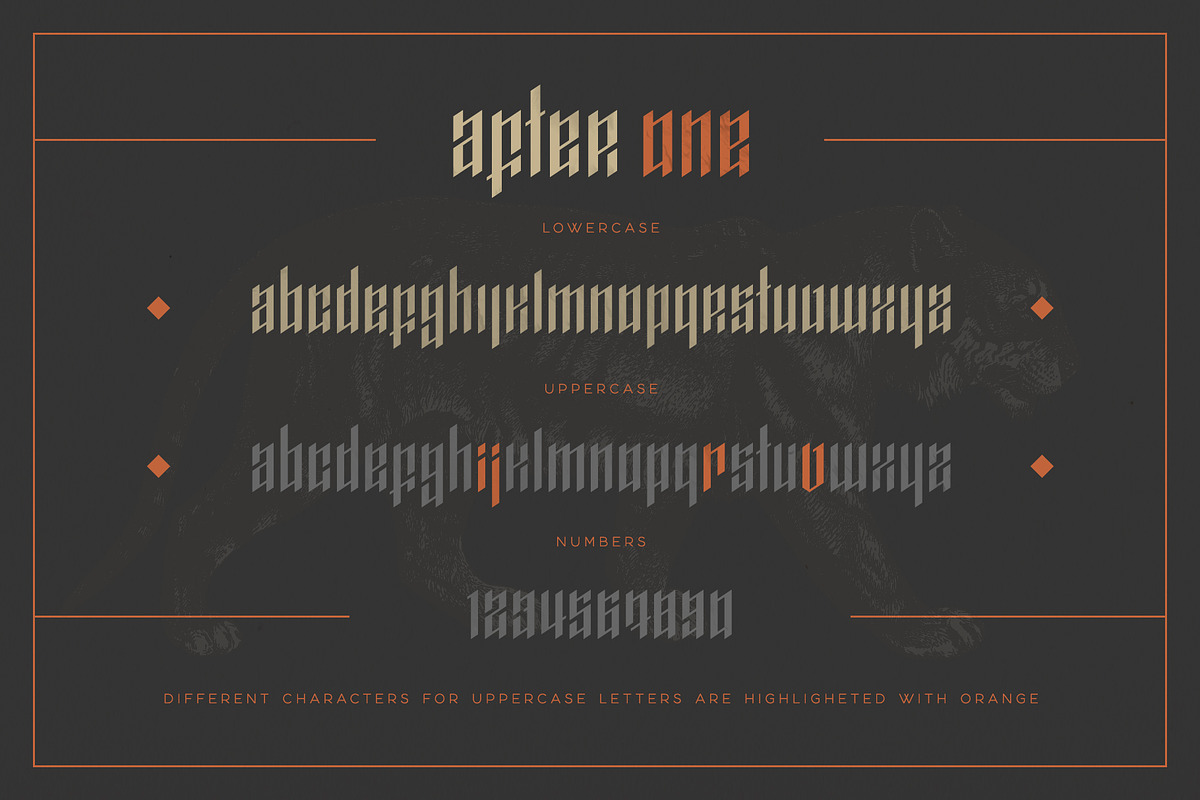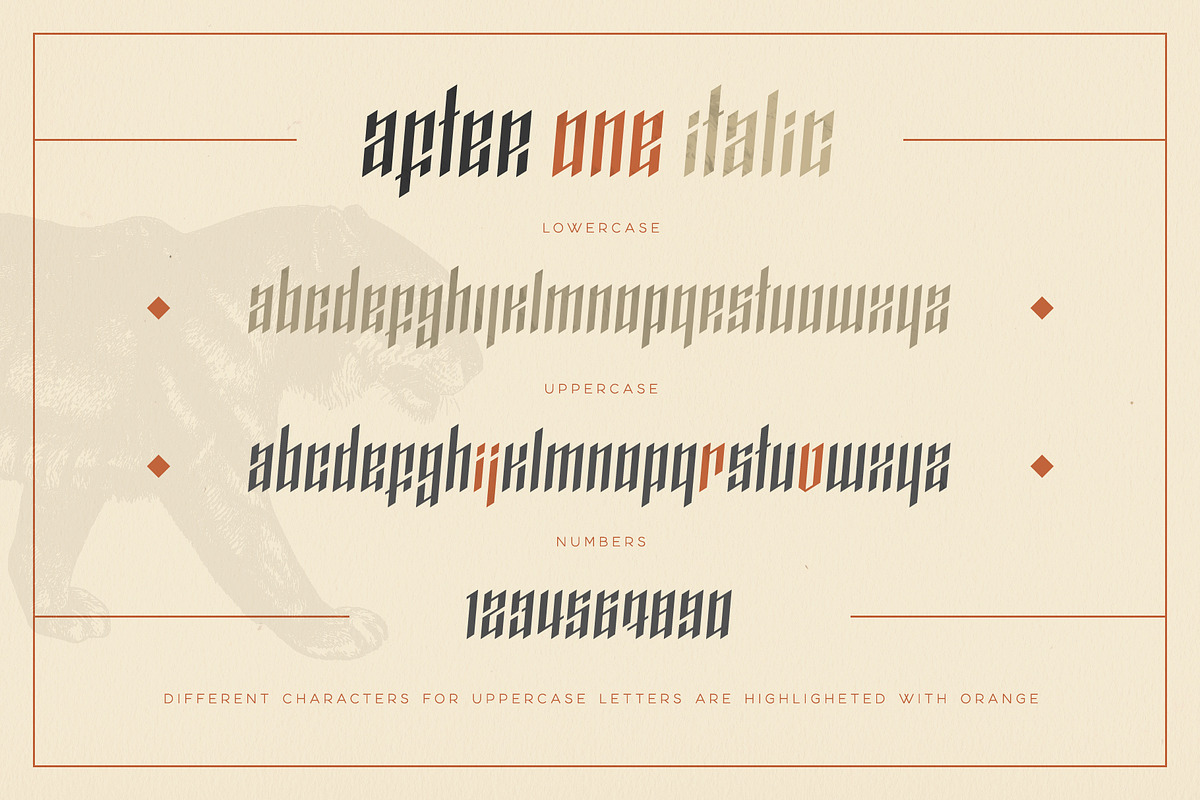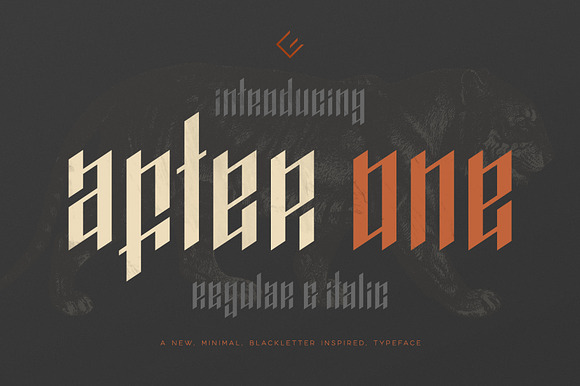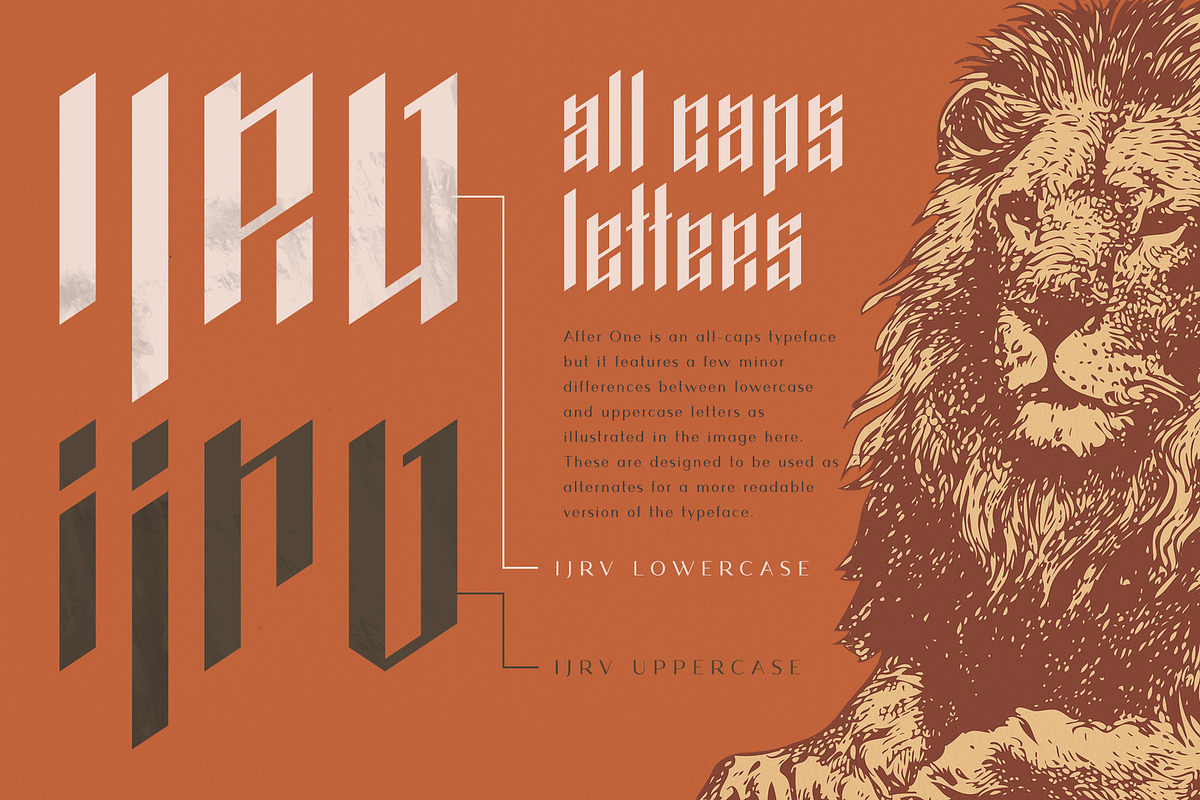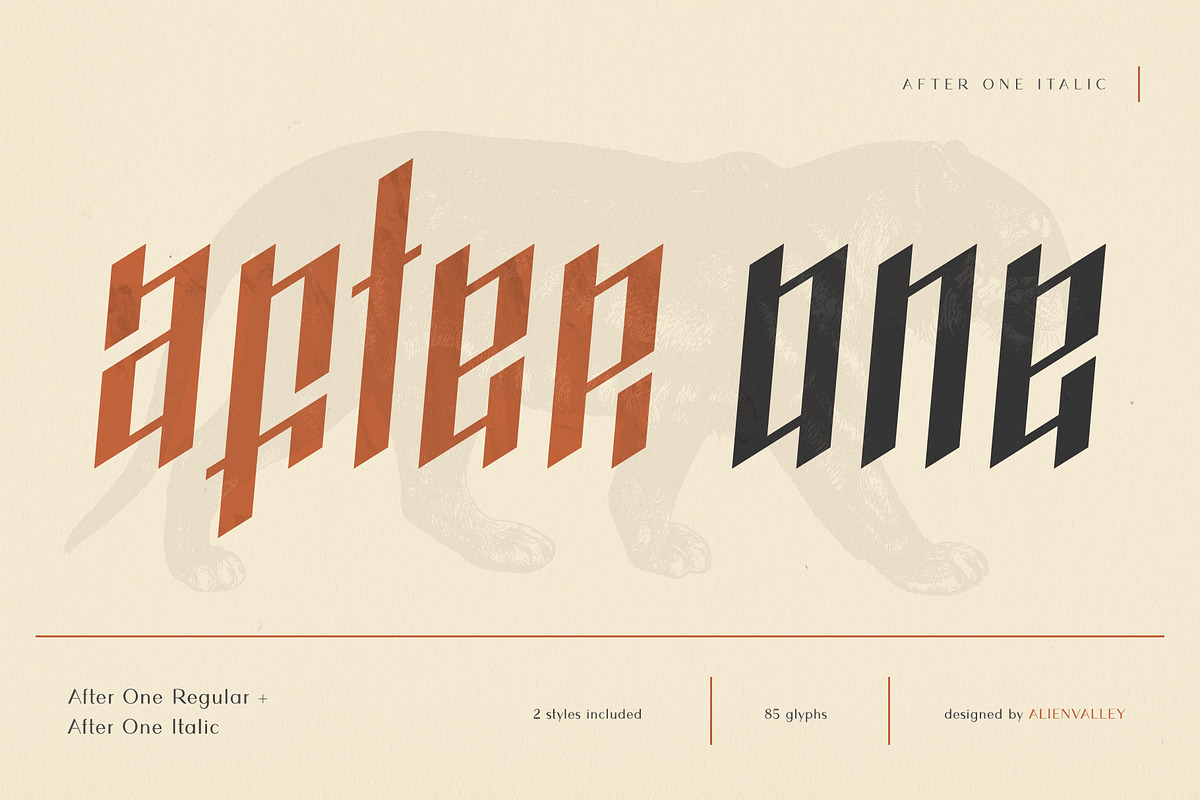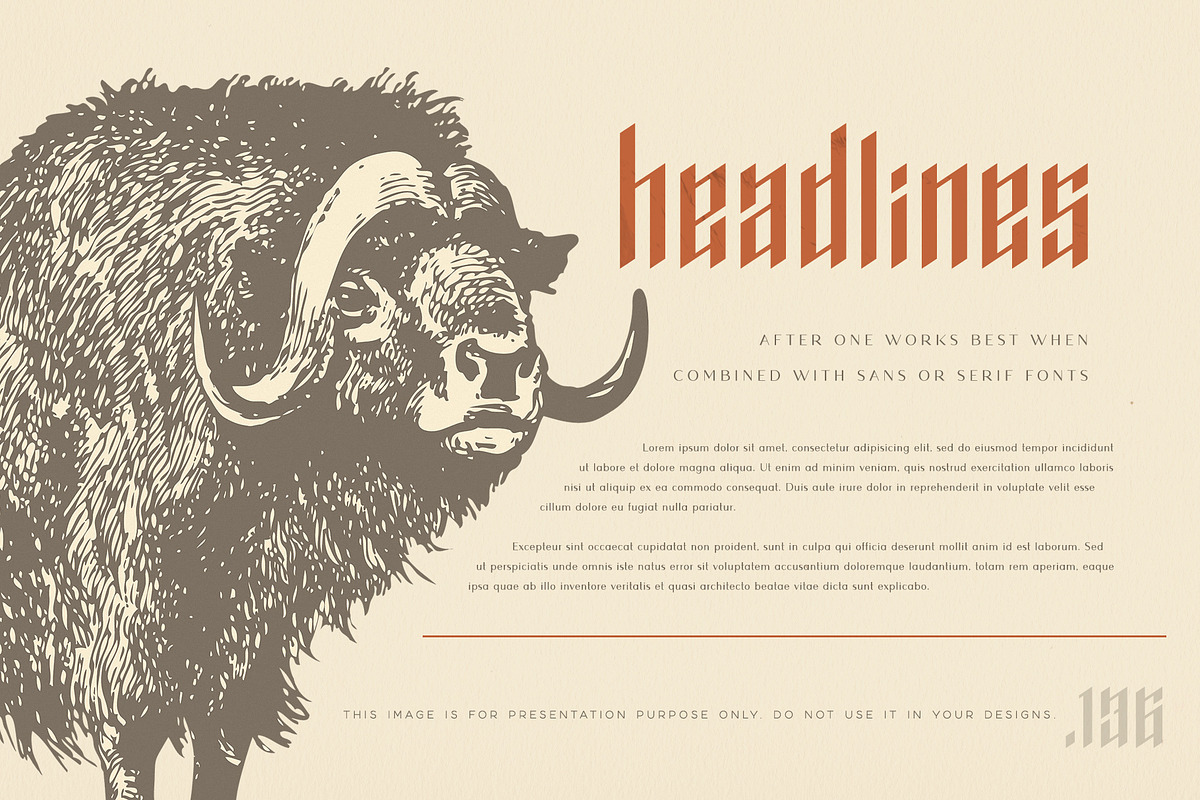
AfterOne - Blackletter Inspired Font
After One is a clean blackletter inspired font with uppercase letters designed especially for headlines. The lowercase version features alternate characters for the letters i, j, r, v as you can see in the preview images. The typeface also features 2 styles: Regular & Italic.
Blackletter inspired uppercase letters
2 Styles (Regular + Italic)